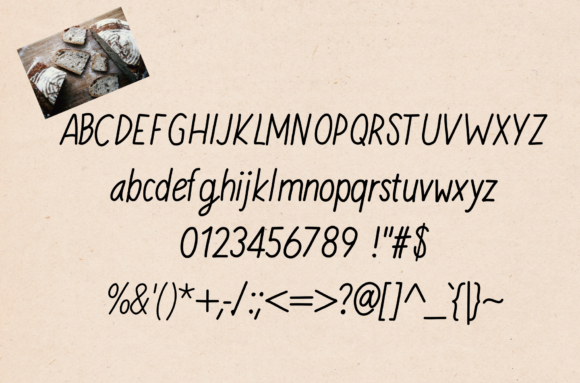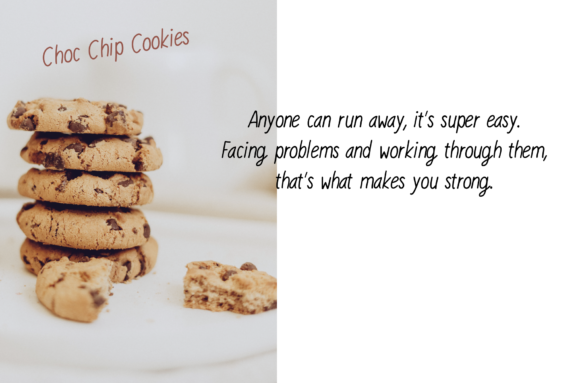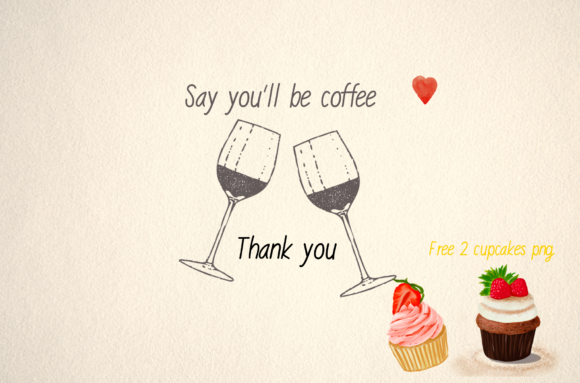
Coffee Font: The Sweet and Friendly Handwritten Font for Your Design Needs
Coffee Font is a delightful and charming handwritten font that has captured the hearts of designers and crafters alike. With its natural and unique style, this font has become an incredibly versatile choice for a wide range of design projects. Whether you’re looking to create a whimsical brand identity, a playful packaging design, or a heartfelt greeting card, Coffee Font is the perfect companion to bring your imagination to life.
The Characteristics of Coffee Font
Coffee Font boasts a sweet and friendly aesthetic that is instantly recognizable. Its handwritten style exudes warmth and approachability, making it an ideal choice for designers who want to create a personal connection with their audience. The font’s natural and unique style is characterized by:
- Fluid strokes: Coffee Font features smooth, flowing strokes that give it a organic and handmade feel.
- Playful letterforms: Each letter is carefully crafted to showcase a charming, whimsical quality that adds to the font’s personality.
- High legibility: Despite its playful nature, Coffee Font remains highly legible, making it suitable for use in a variety of design applications.
Endless Design Possibilities with Coffee Font
The versatility of Coffee Font is one of its most significant advantages. Its unique style can be used in a multitude of design projects, including:
- Branding and logos: Create a memorable brand identity with Coffee Font, perfect for businesses that want to convey a friendly and approachable image.
- Packaging design: Add a touch of whimsy to your product packaging with Coffee Font, ideal for food, beverage, or lifestyle products.
- Greeting cards and invitations: Use Coffee Font to create heartfelt and personalized greeting cards, invitations, or thank-you notes.
- Digital and print media: Coffee Font is suitable for use in digital and print media, including social media graphics, blog posts, and magazine articles.
Why Designers and Crafters Love Coffee Font
Coffee Font has become a favorite among designers and crafters due to its:
- Unique style: Coffee Font’s distinctive style sets it apart from other fonts, allowing designers to create truly one-of-a-kind designs.
- Ease of use: The font is incredibly easy to use, even for those without extensive design experience.
- Time-saving: With Coffee Font, designers can quickly create professional-looking designs without spending hours on typography.
Tips for Getting the Most Out of Coffee Font
To maximize the potential of Coffee Font, consider the following tips:
- Experiment with colors: Coffee Font looks stunning in a variety of colors, so don’t be afraid to try out different hues and combinations.
- Mix and match: Combine Coffee Font with other fonts or design elements to create a unique and eye-catching design.
- Pay attention to spacing: Adjust the spacing between letters and words to create a more natural, handwritten feel.
Coffee Font is a sweet and friendly handwritten font that has captured the hearts of designers and crafters worldwide. Its natural and unique style makes it an incredibly versatile choice for a wide range of design projects. With its fluid strokes, playful letterforms, and high legibility, Coffee Font is the perfect companion for bringing your imagination to life. So why wait? Unlock the creative potential of Coffee Font and discover a world of design possibilities!